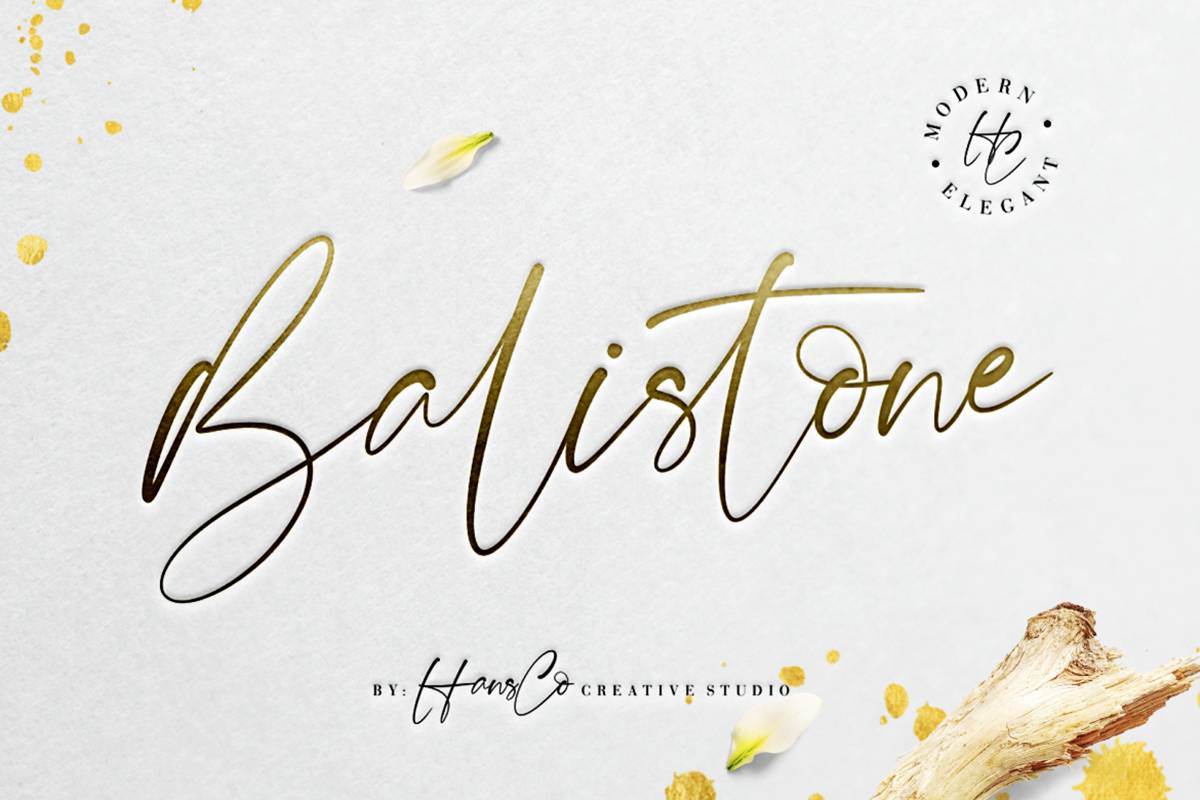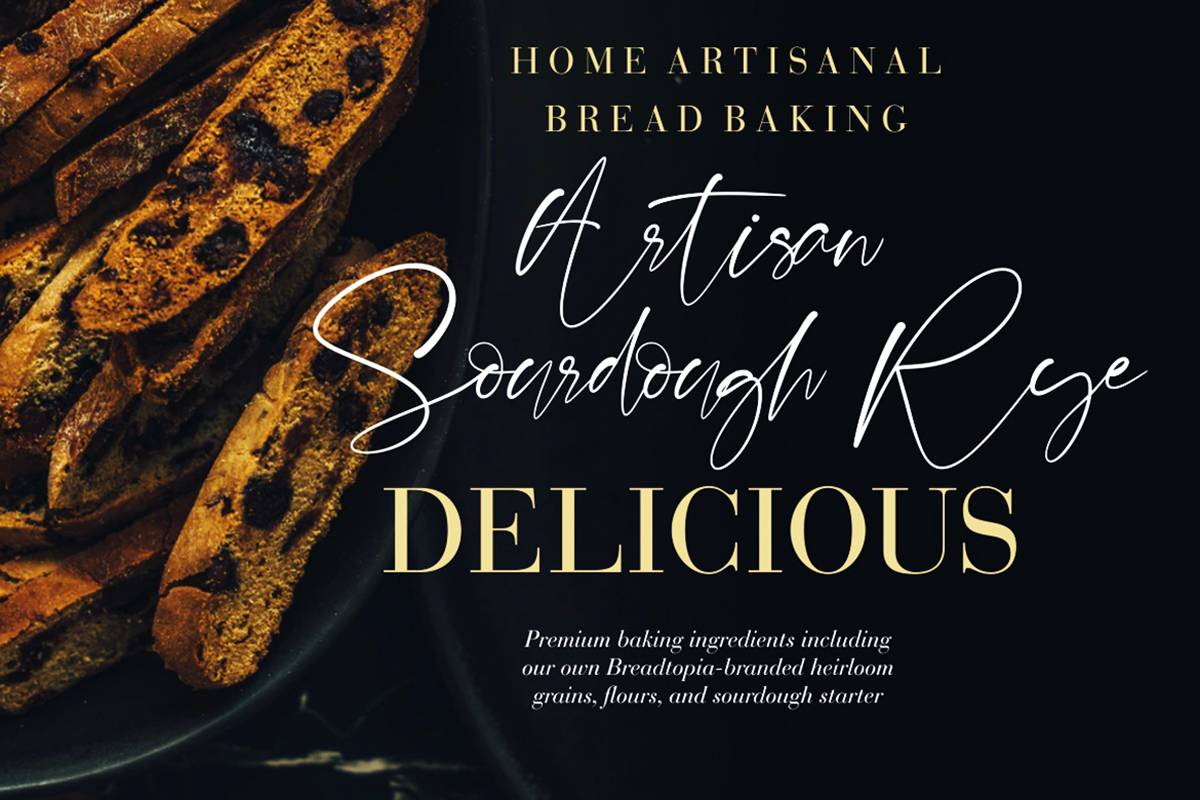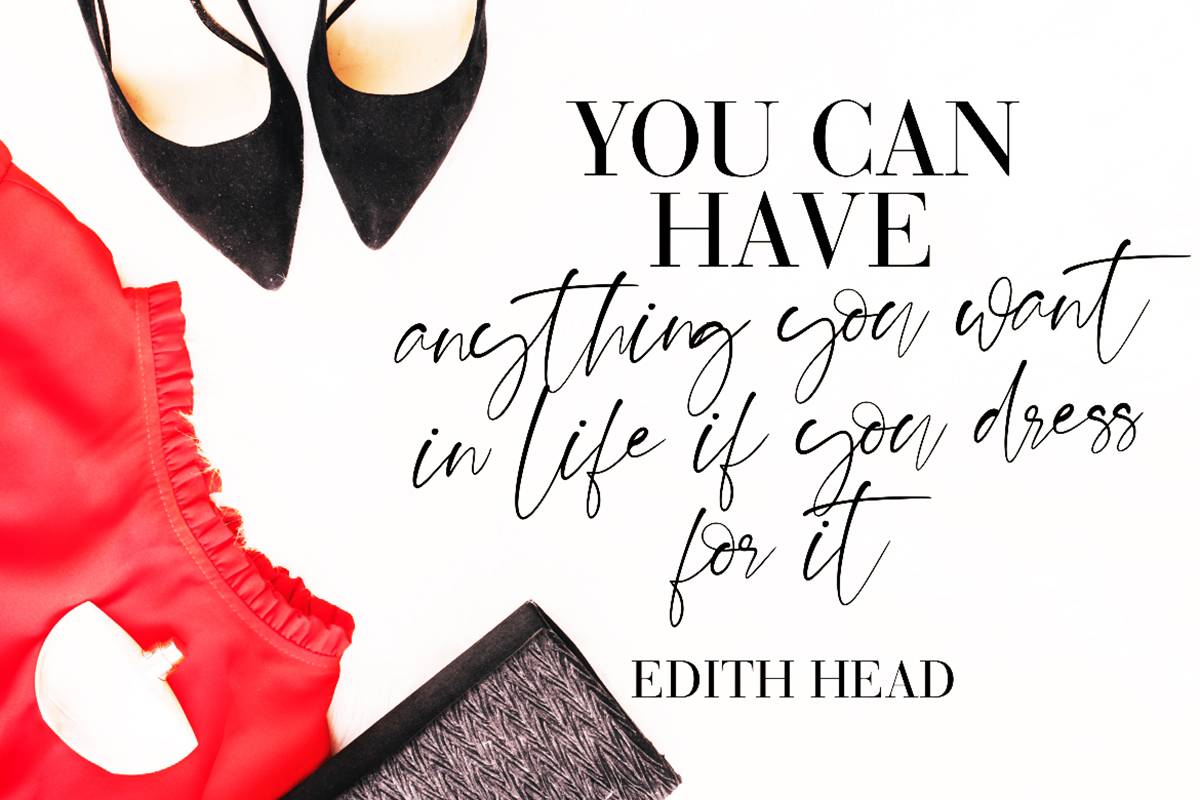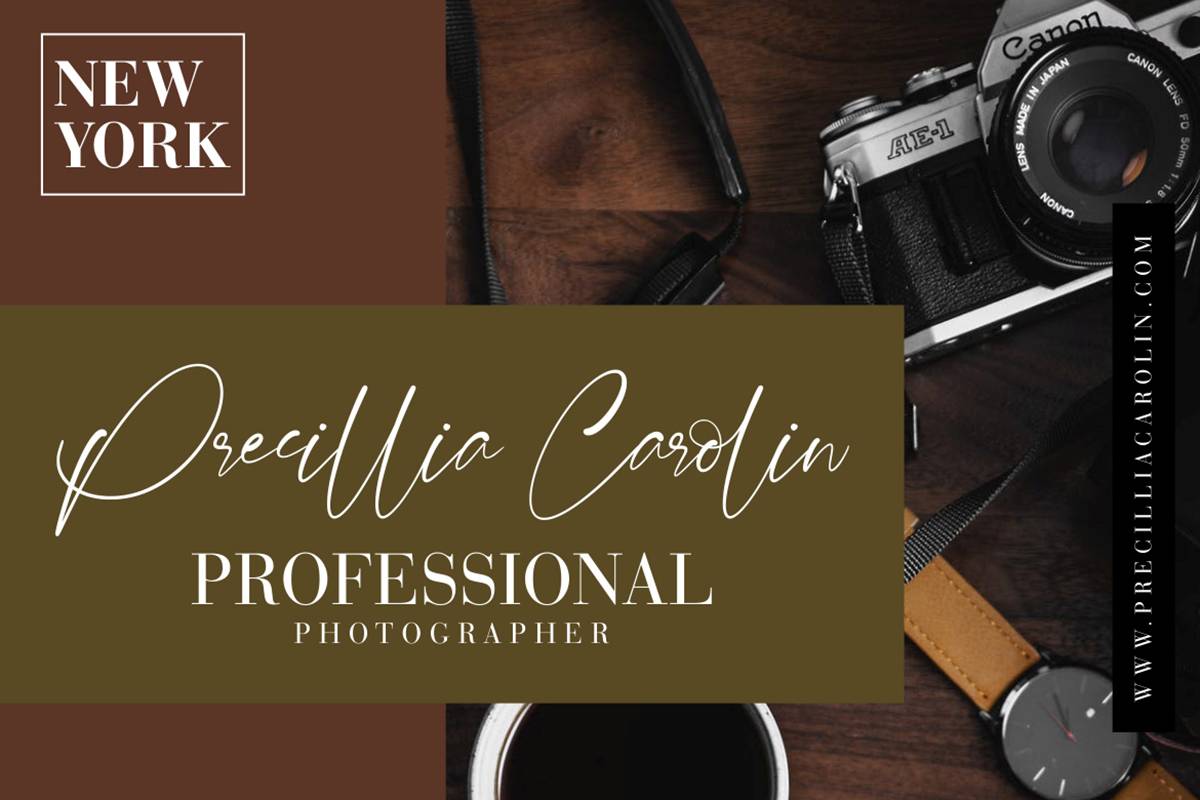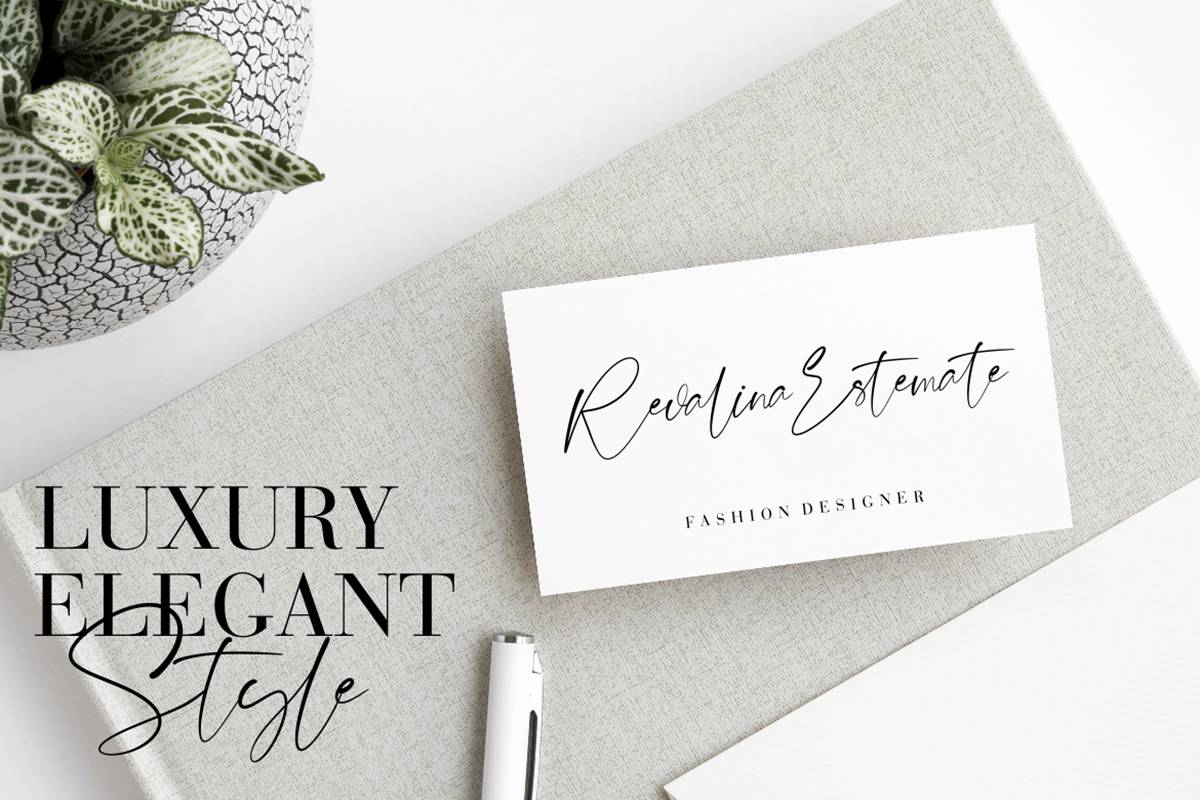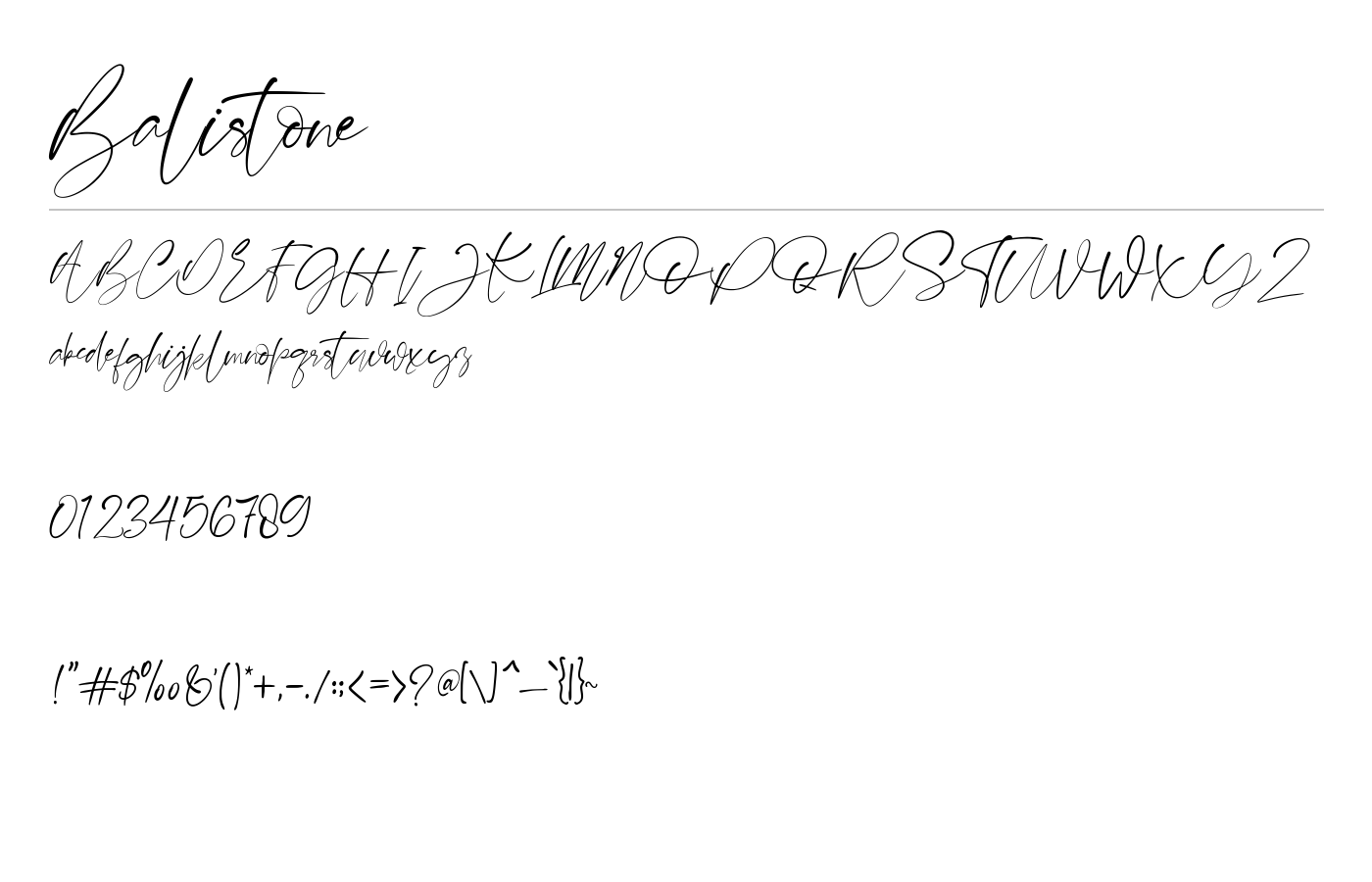
Balistone is a delicate, modern script font characterized by its graceful, flowing strokes and elegant thin lines. Its handwritten style conveys a personal, artistic touch, making it ideal for luxury branding, wedding invitations, and stylish editorial projects that seek a sophisticated yet approachable feel. The font’s airy, connected letterforms add charm and refinement, perfect for designs that want to evoke elegance and creativity.
Balistone Font
About Balistone Font